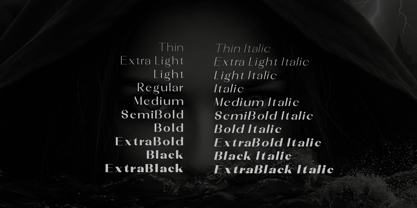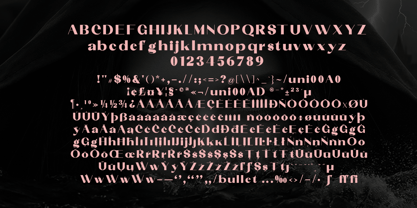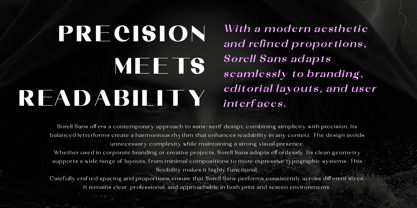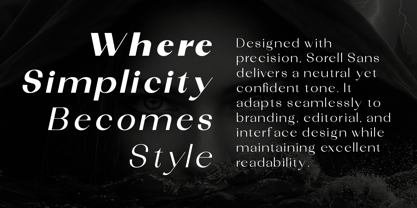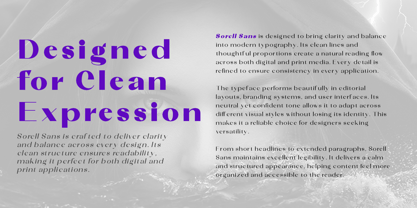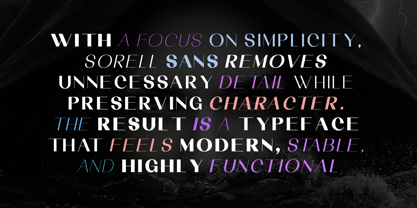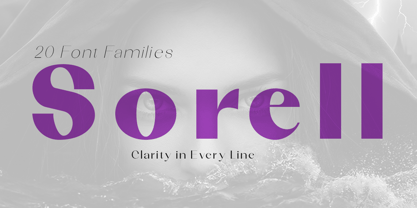
Sorell
by Artisan Studio
The Sorell Font Family was designed by Roiyani Teungku and published by Artisan Studio. Sorell contains 20 styles and family package options. More about this family
Sorell Sans is a modern sans-serif typeface designed with clarity, balance, and versatility in mind. Built on clean lines and refined proportions, it delivers a contemporary look while maintaining excellent readability across a wide range of applications. Its neutral yet confident character allows Sorell Sans to adapt effortlessly to different design needs—from branding and editorial layouts to user interfaces and digital experiences. The carefully crafted letterforms create a harmonious rhythm, ensuring consistency and visual comfort in both headlines and extended text. With a focus on simplicity and precision, Sorell Sans avoids unnecessary complexity while preserving a distinctive identity. It performs reliably at various sizes, making it suitable for everything from bold display use to detailed body text. Sorell Sans is a versatile typographic solution for designers seeking a clean, professional, and timeless sans-serif that works seamlessly across print and screen. 10 Upright. Designed with precision, Sorell Sans delivers a neutral yet confident tone. It adapts seamlessly to branding, editorial, and interface design while maintaining excellent readability. 10 Italic. Sorell Sans Italic balances expression and function. Its design supports emphasis and contrast while staying consistent with the overall type family. Total of 20 font families.
Designers: Roiyani Teungku
Foundry: Artisan Studio